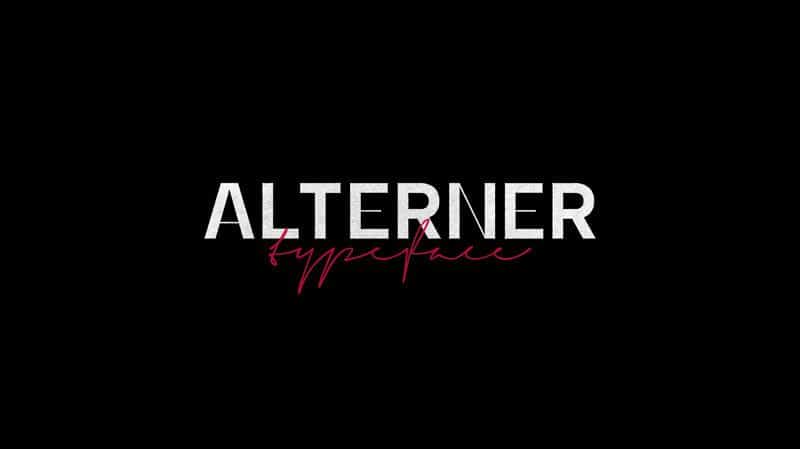
Alterner Sans Serif Font is a refreshing sans serif font that is ready for anything! This handy semi-condensed font includes clean & textured fonts, with oblique versions for each. Includes uppercase letters, numerals, a large range of punctuation. sans serif font with modern style. Created for poster, web design, branding, illustrations, badges and some other works.
- Designer: Jack Thompson